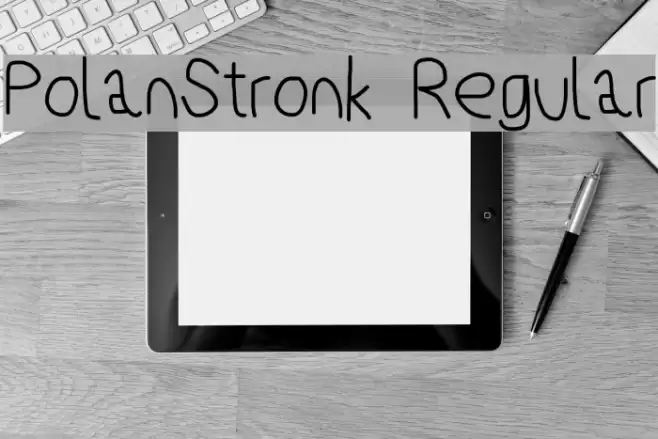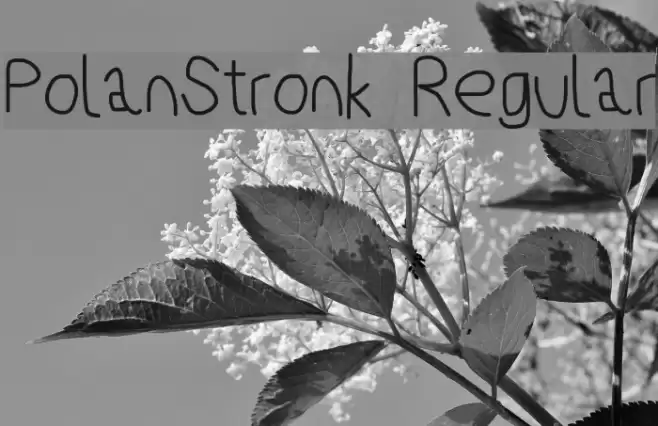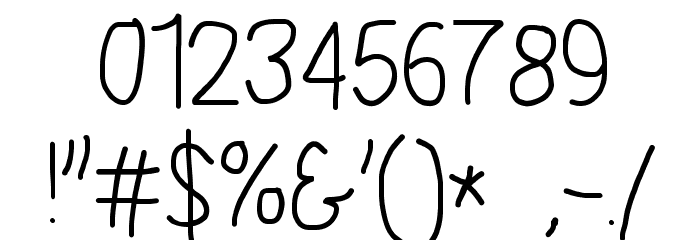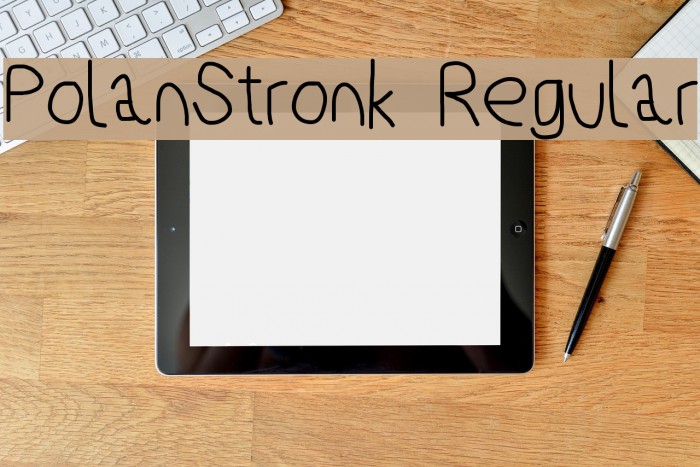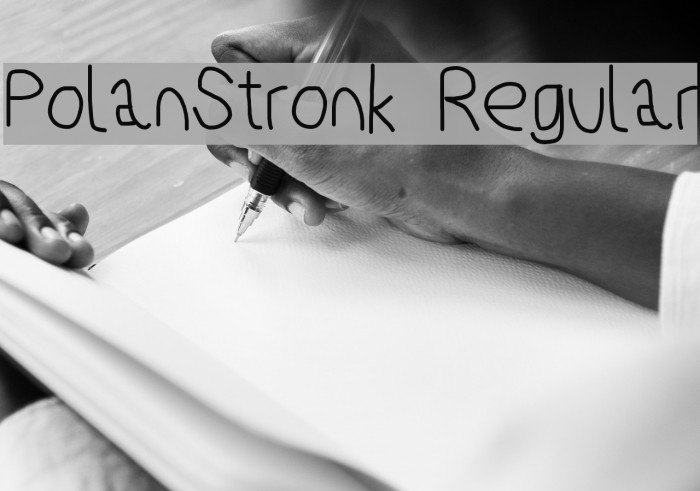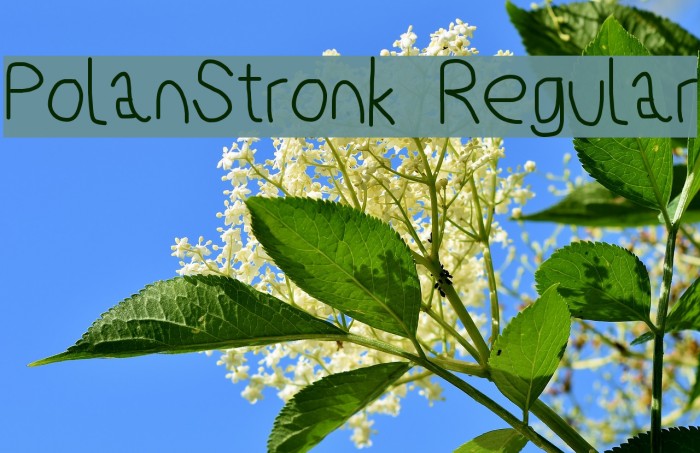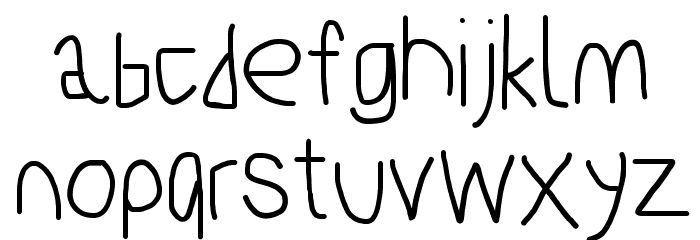
PolanStronk Regular Font
PolanStronk Regular Description
This font features a playful and informal style, characterized by its hand-drawn appearance. The letters are slightly irregular, giving it a casual and approachable feel. The strokes are consistent in width, providing a uniform look across all characters. The uppercase and lowercase letters maintain a cohesive style, with rounded edges and a slight tilt that adds to its whimsical nature. Numbers and special characters follow the same design principles, ensuring a harmonious overall appearance. This font is ideal for projects that require a personal touch or a lighthearted tone.
A playful, hand-drawn font with a casual and informal style from Handwritten fonts.
- Proposed Projects: Ideal for children's books, greeting cards, casual branding, and social media graphics.
- Overall Style: Casual
- Use Case: Headlines, Informal text, Creative projects